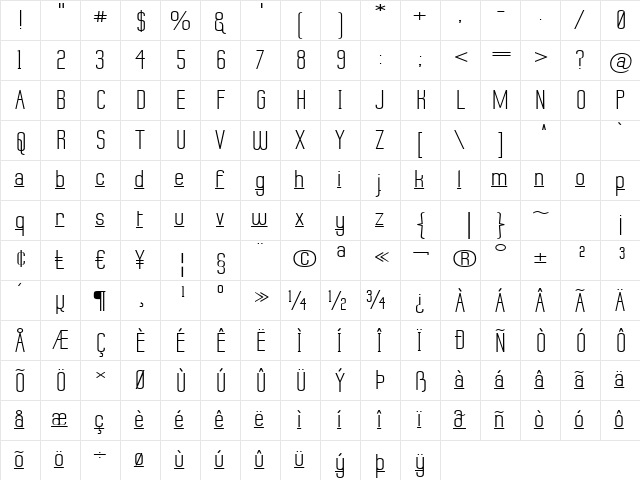
Labtop Down Under Regular
| Designer | Graham Meade |
Design Context for Labtop Down Under Typeface
Labtop Down Under offers clean, dependable letterforms without strong stylistic allegiance, making it a practical choice for designers who need flexibility.